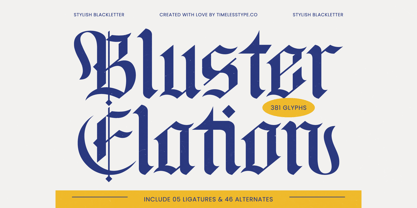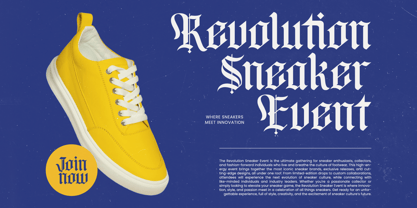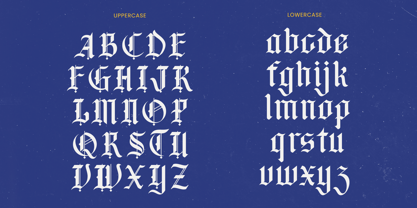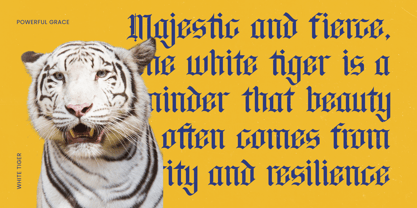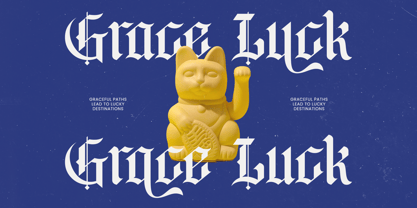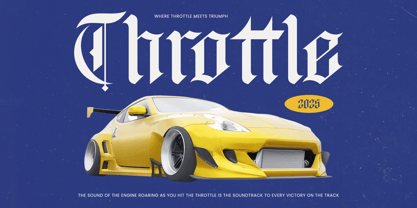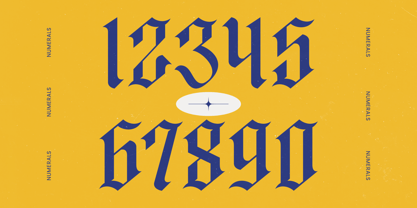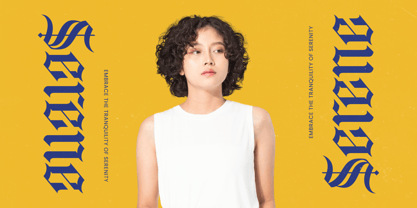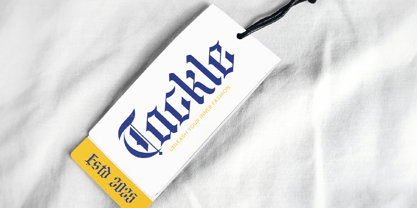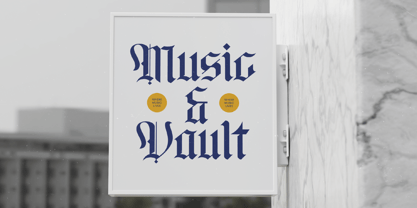
Bluster Elation
by Timelesstype Studio
The Bluster Elation Font Family was designed by Heru Utama Putra and published by Timelesstype Studio. Bluster Elation contains 2 styles and family package options.
Bluster Elation - Stylish Blackletter Font , from Timelesstype, Suitable for any projects such as: logos, branding projects, homeware designs, product packaging, mugs, quotes, posters, shopping bags, t-shirts, book covers, name card, invitation cards, greeting cards, label, photography, watermark, special events, and all your other luxury and beautiful projects that need a Luxury Serif taste.